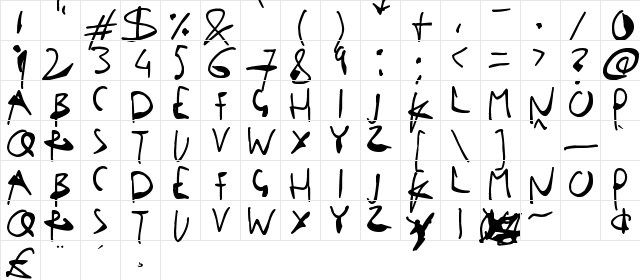
Single Stroke Inks Regular
Design Context for Single Stroke Inks Typeface
Single Stroke Inks is a composed and adaptable typeface that performs quietly and consistently across a wide range of design contexts.
Pro Tip: Use Single Stroke Inks in both headline and body roles to test its range before committing to a single application.